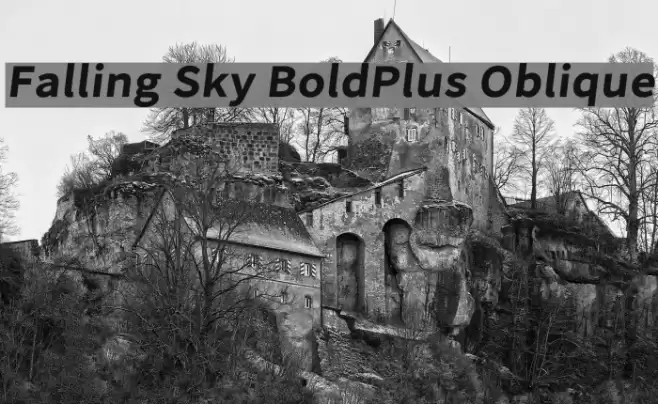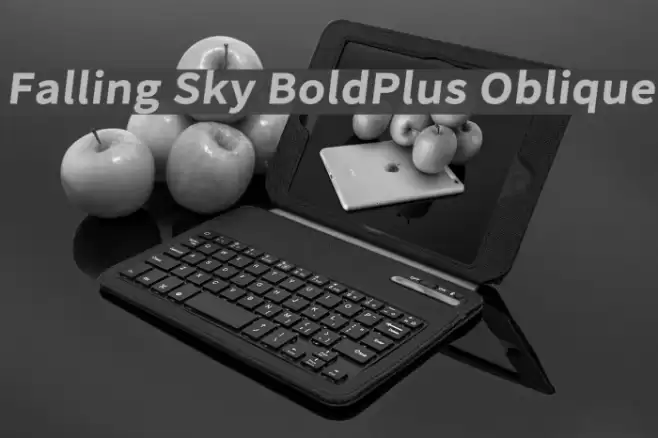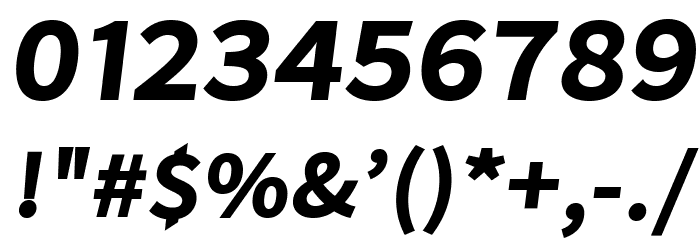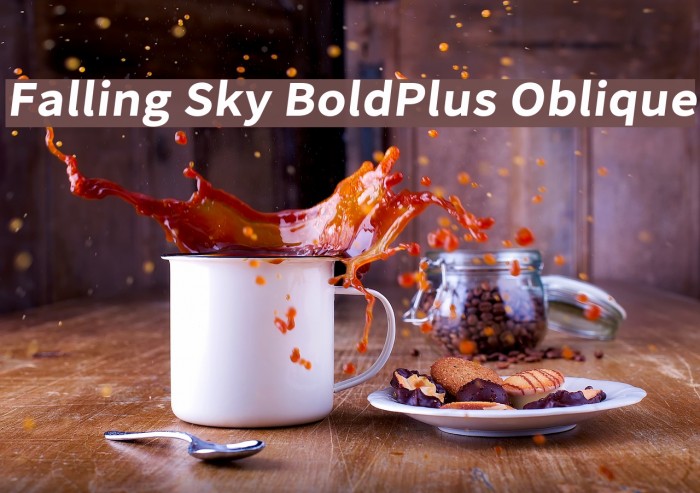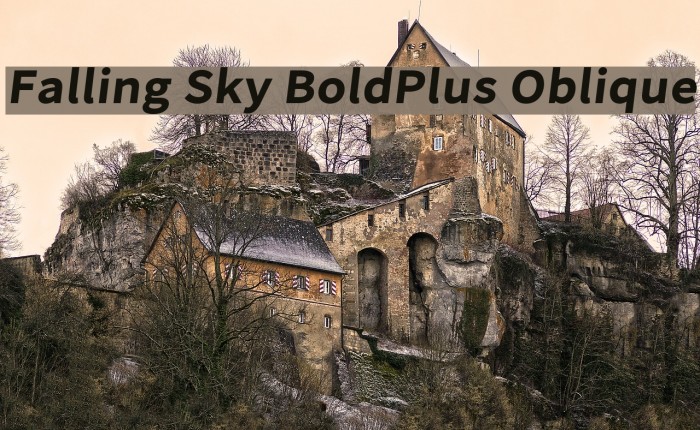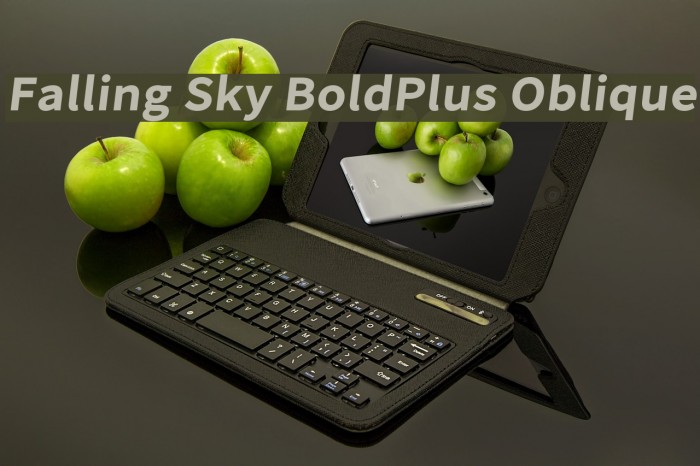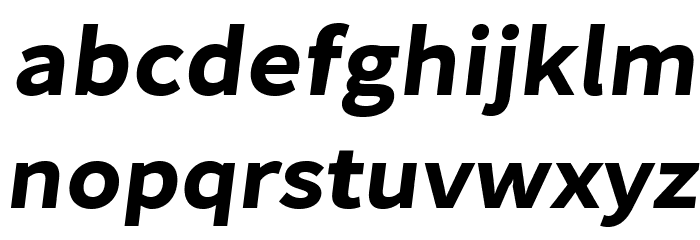
Falling Sky BoldPlus Oblique Font
Falling Sky BoldPlus Oblique Description
This font features a bold and dynamic style with a noticeable oblique slant, giving it a sense of motion and energy. The characters are well-defined with a clean, sans-serif design that emphasizes clarity and readability. The uppercase and lowercase letters maintain a consistent weight, contributing to a cohesive appearance. The numerals are robust and align well with the overall style, ensuring they stand out clearly. Special characters are included, maintaining the same bold and slanted characteristics, making them suitable for various design needs. The font's modern aesthetic is complemented by its slightly condensed width, which allows for efficient use of space without sacrificing legibility.
A bold, oblique sans-serif font with a modern and dynamic style from Uncategorized fonts.
- Proposed Projects: Ideal for branding, advertising, headlines, and digital media where a strong, modern presence is desired.
- Use Case: Headlines, Logos, Digital Media